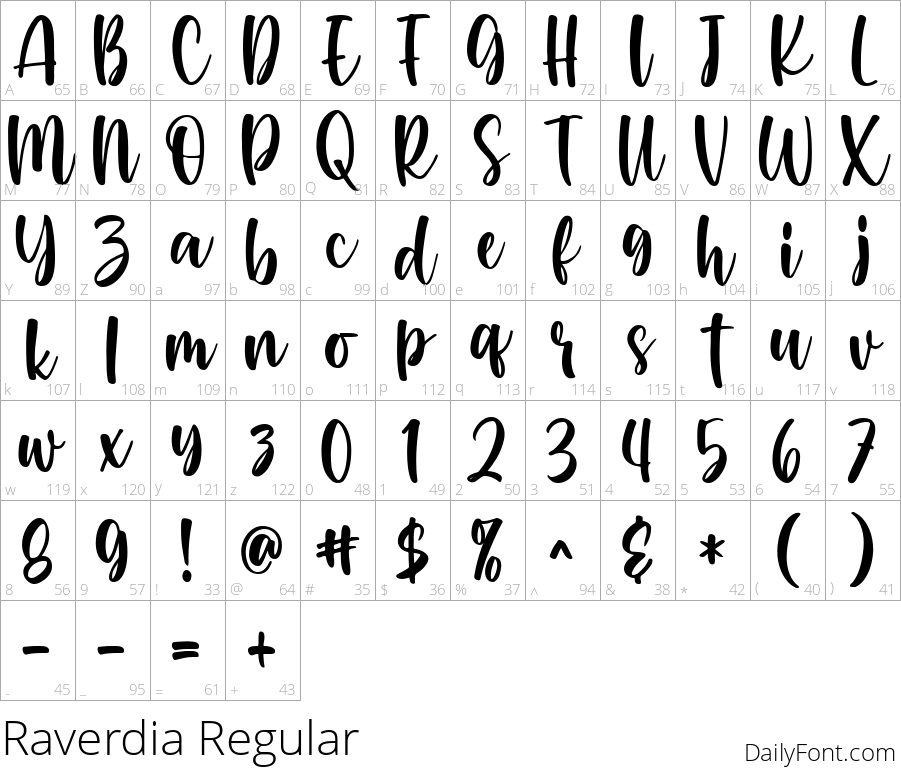
Raverdia
Raverdia is a whimsical script font that brings a touch of relaxed elegance to any design project. With its captivating curves and charming strokes, Raverdia effortlessly exudes a delightful personality, making it ideal for both casual and formal applications. Whether you're designing invitations, greeting cards, or branding materials, its unique style can seamlessly elevate your artwork and add a memorable flair.
This versatile font's playful nature allows it to complement a wide range of themes and subjects, ensuring that no creative endeavor is ever limited. Its high readability makes it suitable for various sizes, while its artistry draws the attention of viewers. Incorporating Raverdia into your fonts library means giving your projects a distinctive edge that stands out in a crowded market. Let the enchantment of Raverdia inspire your creativity and elevate your designs today!